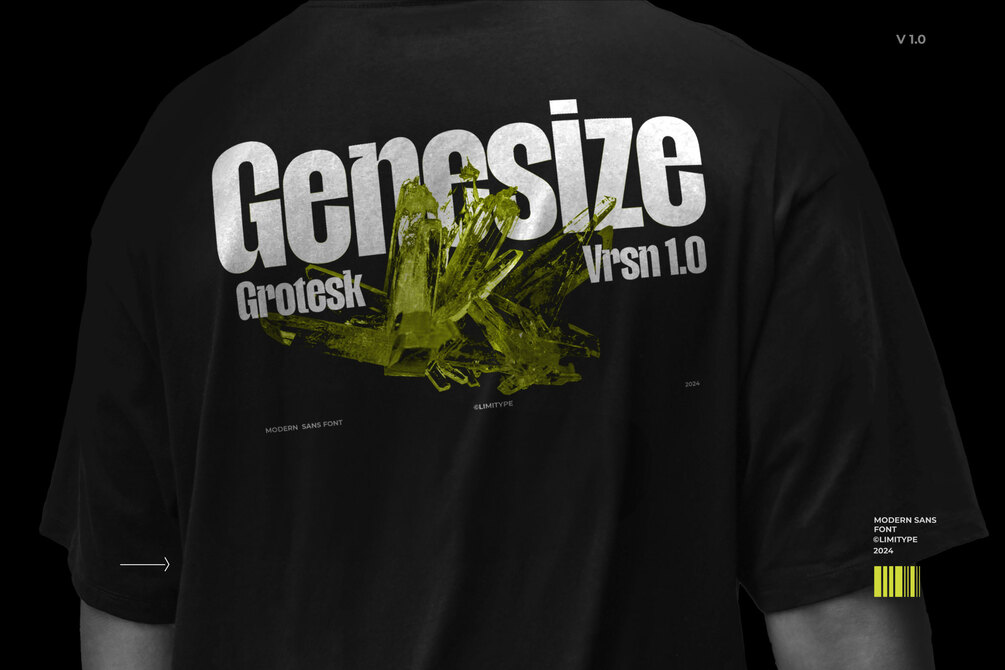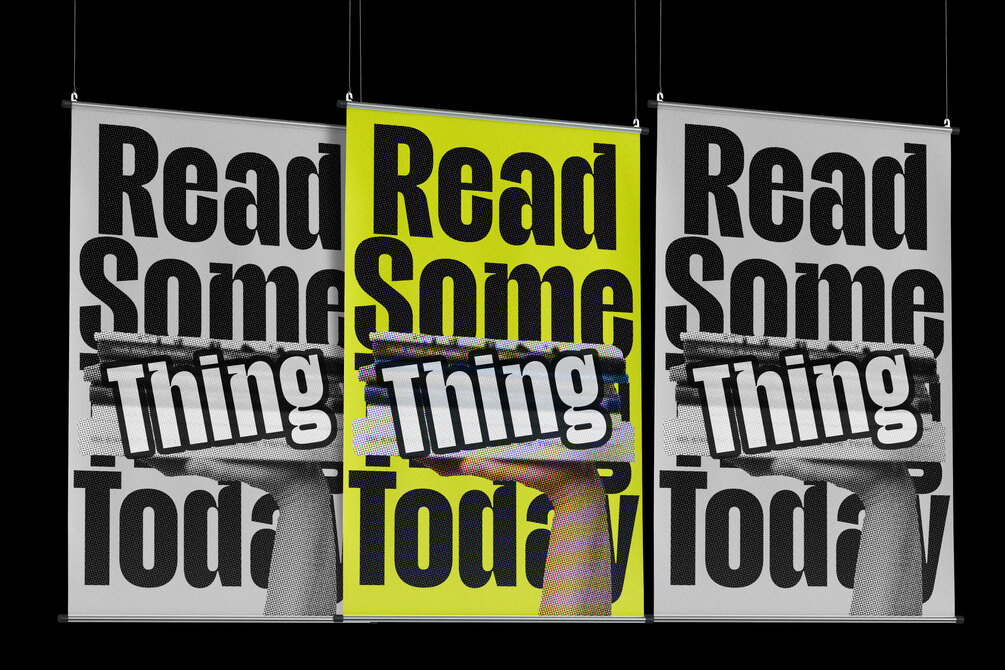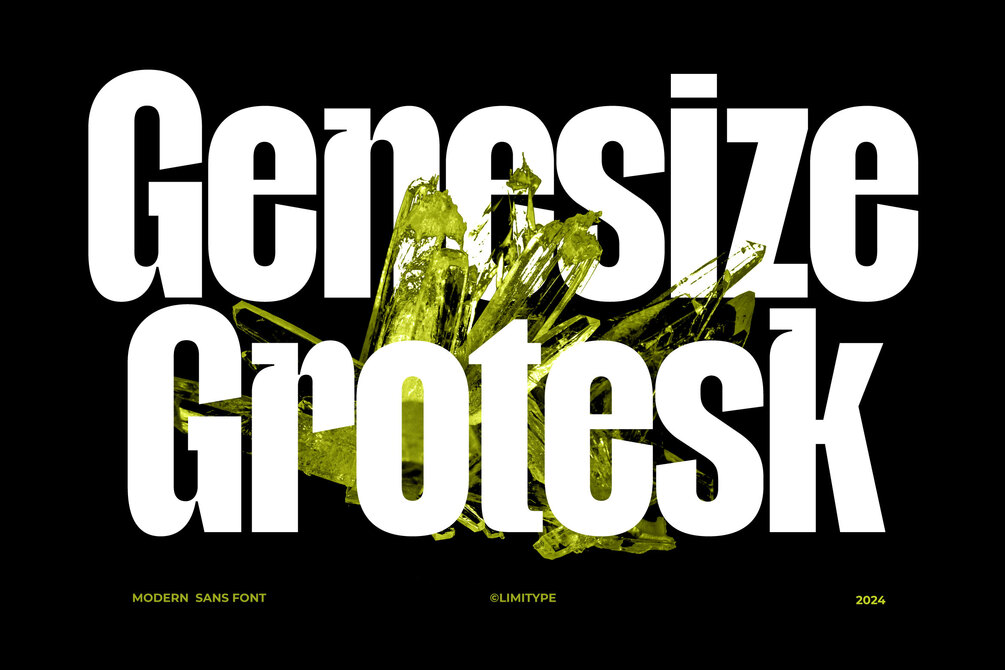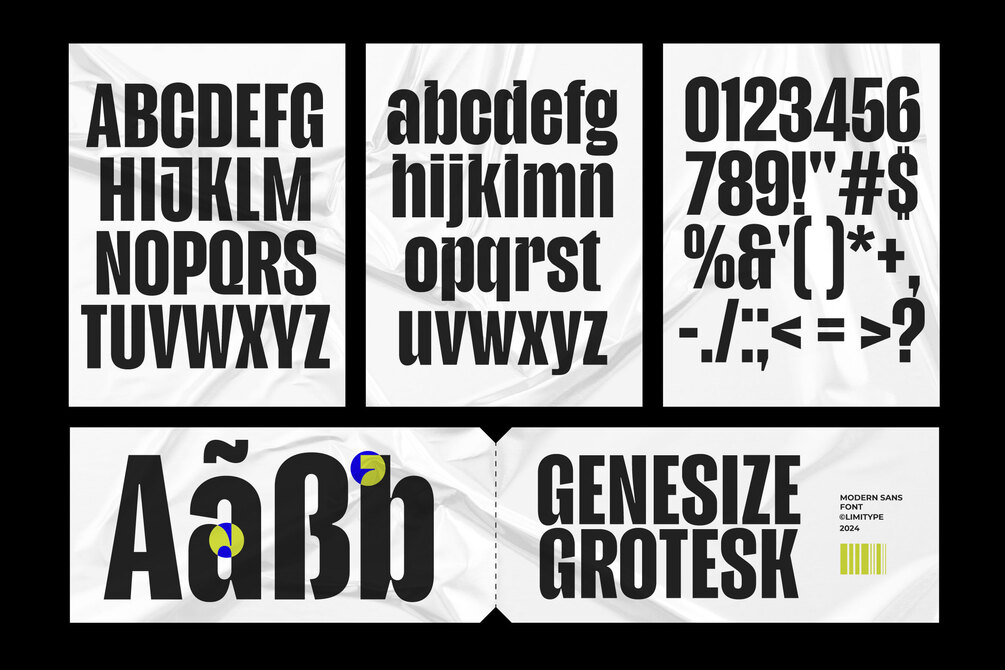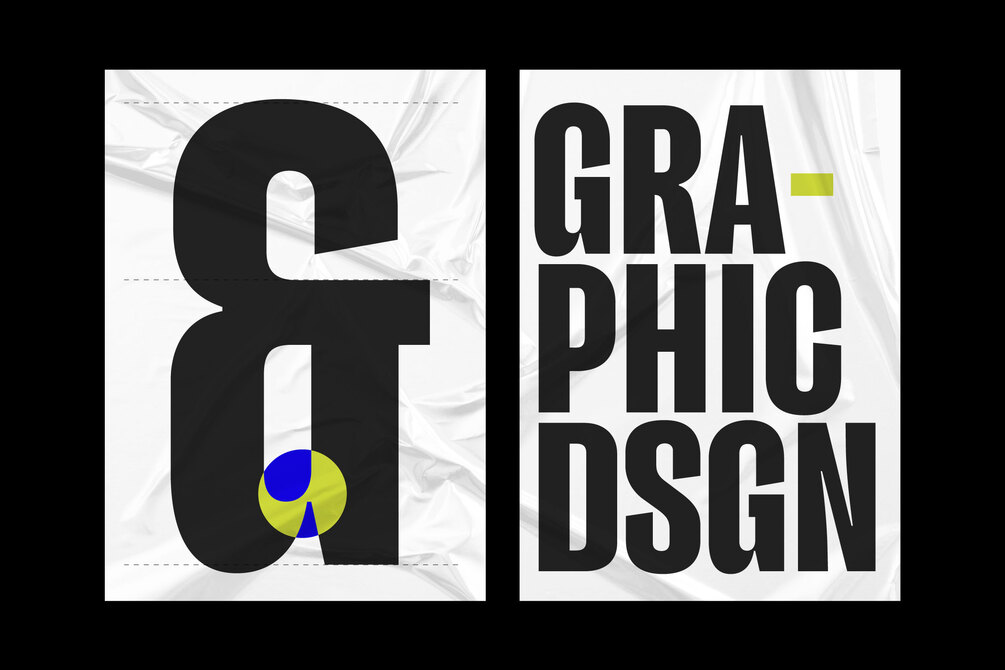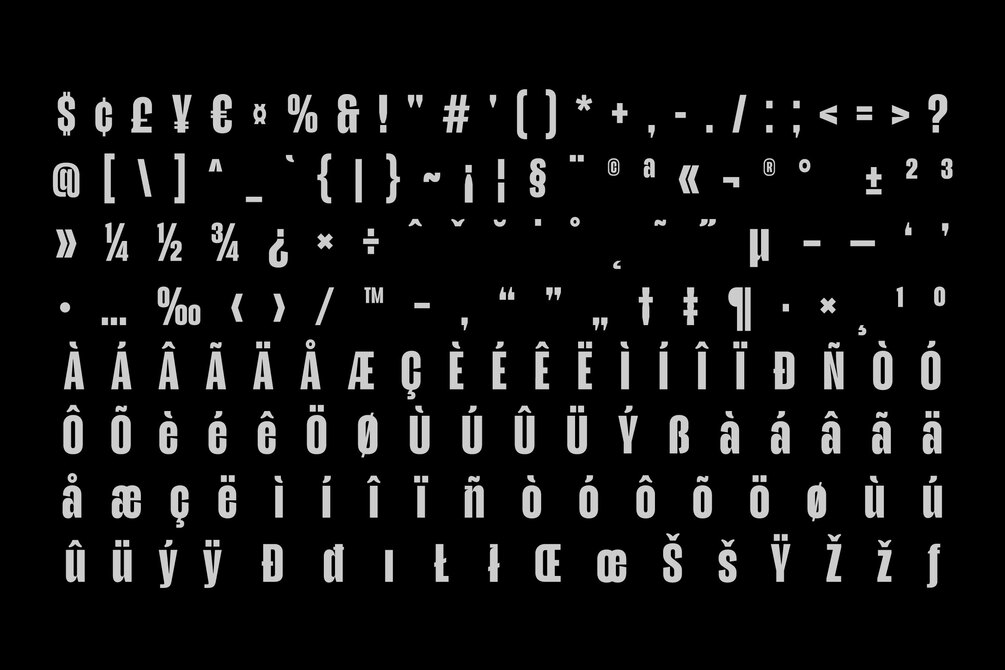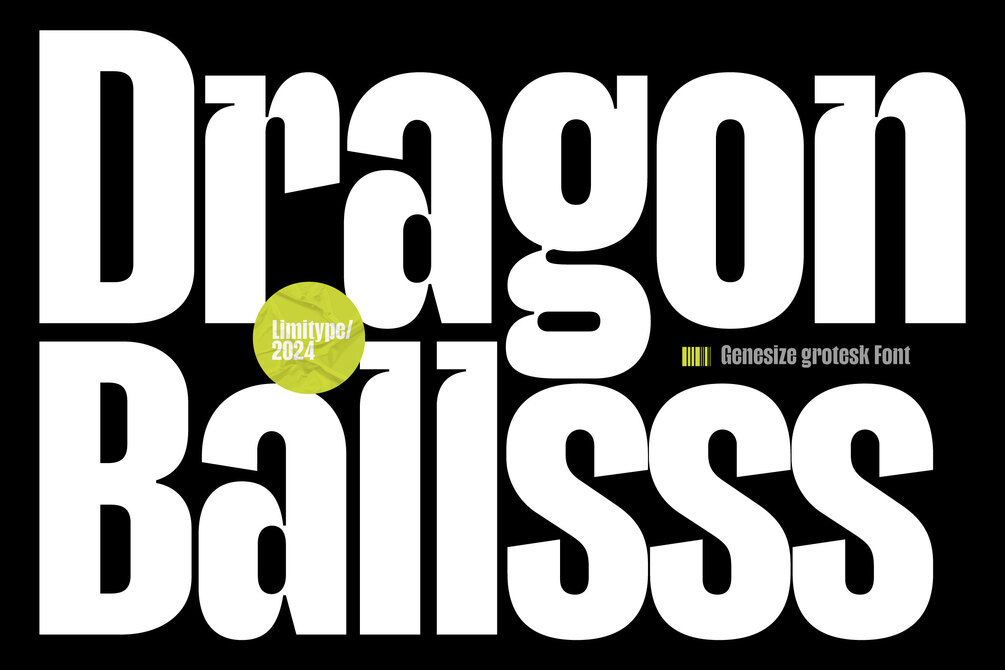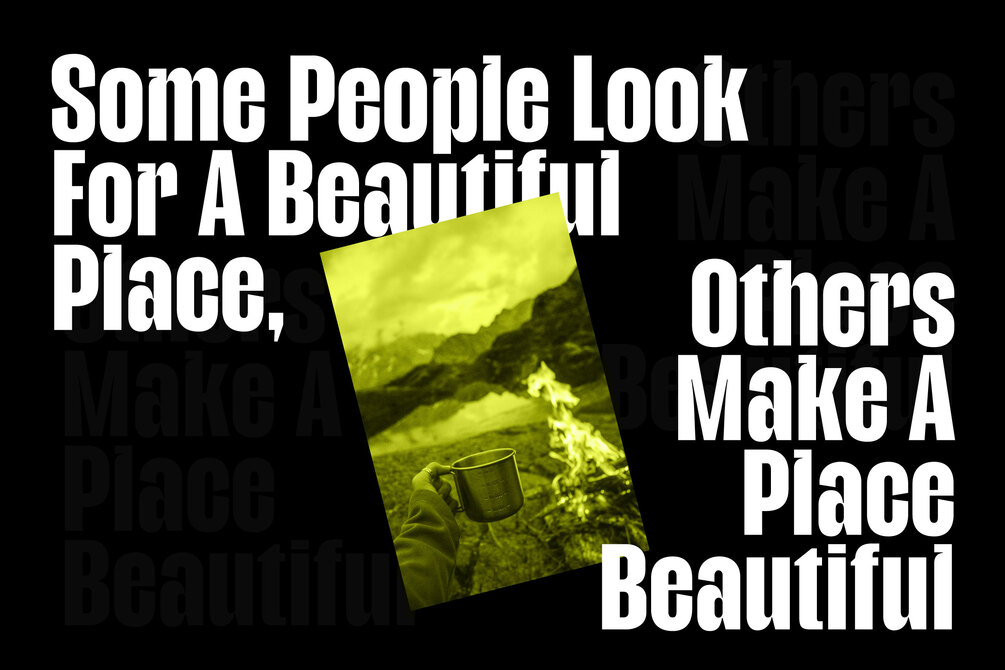
Genesize Grotesk
Genesize grotesk is a modern sans display font with several unique stems and joins, with a condensed style this font is suitable for your design needs for displays, headlines, banners etc.
• Uppercase
• Lowercase
• Numbers
• Symbols
• And multilingual